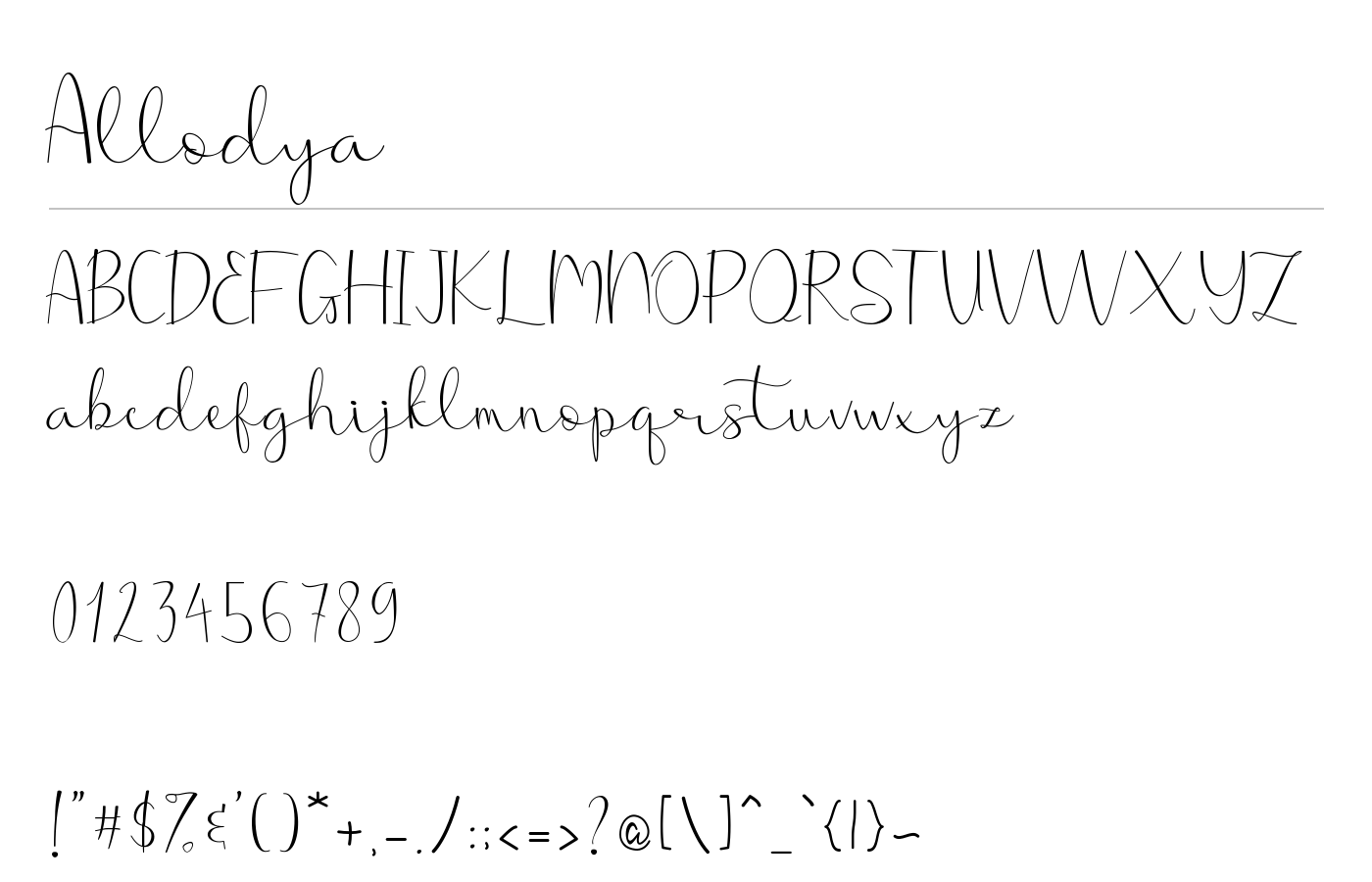
Allodya is a delicate, handwritten script font with a slender, airy feel and graceful, flowing strokes. Its thin lines and elegant curves make it perfect for projects that seek a personal, whimsical touch, such as invitations, branding, and feminine design themes. This font works best for display use where a light, artistic style is desired rather than dense text blocks.
Allodya Font
About Allodya Font